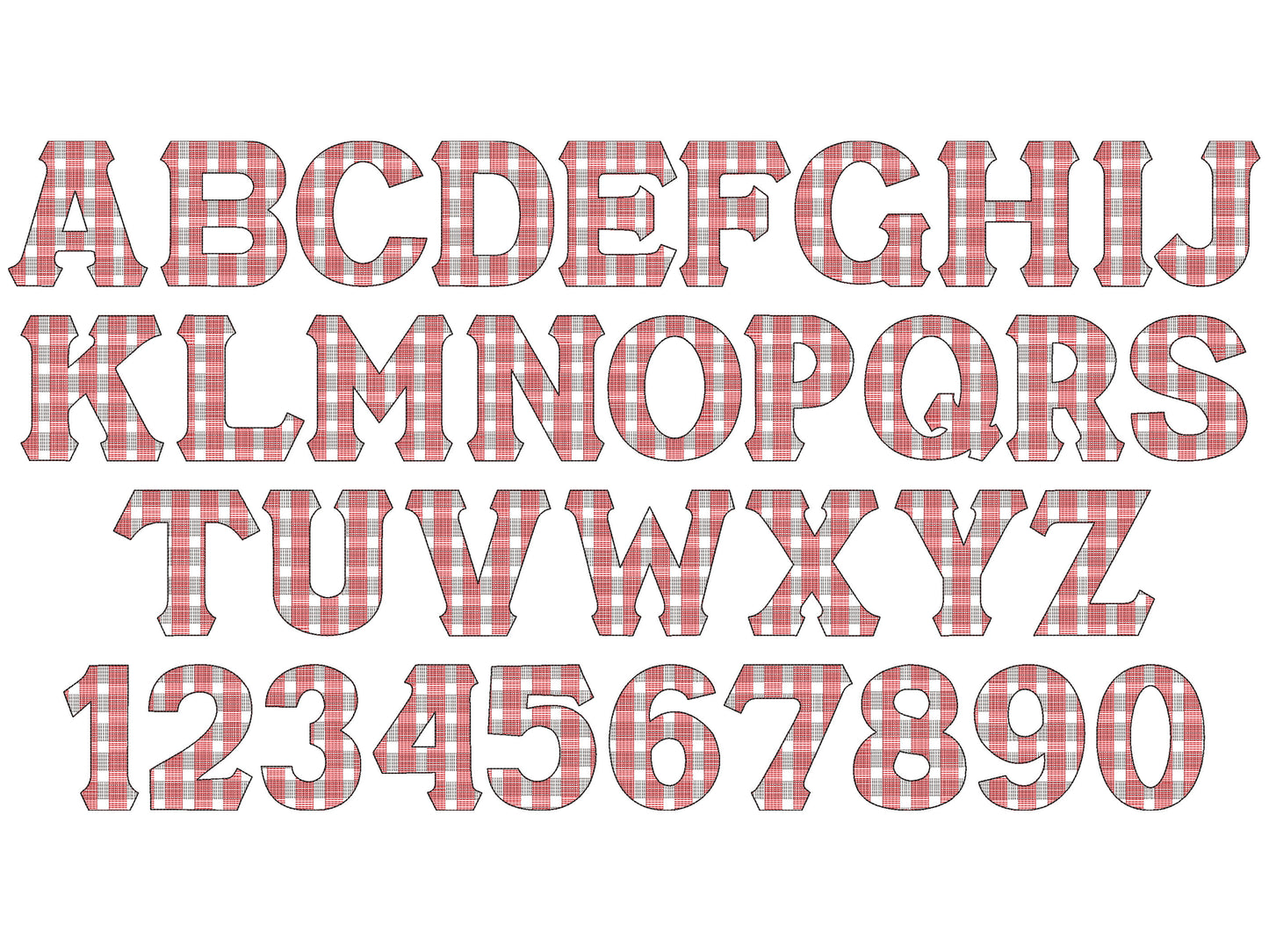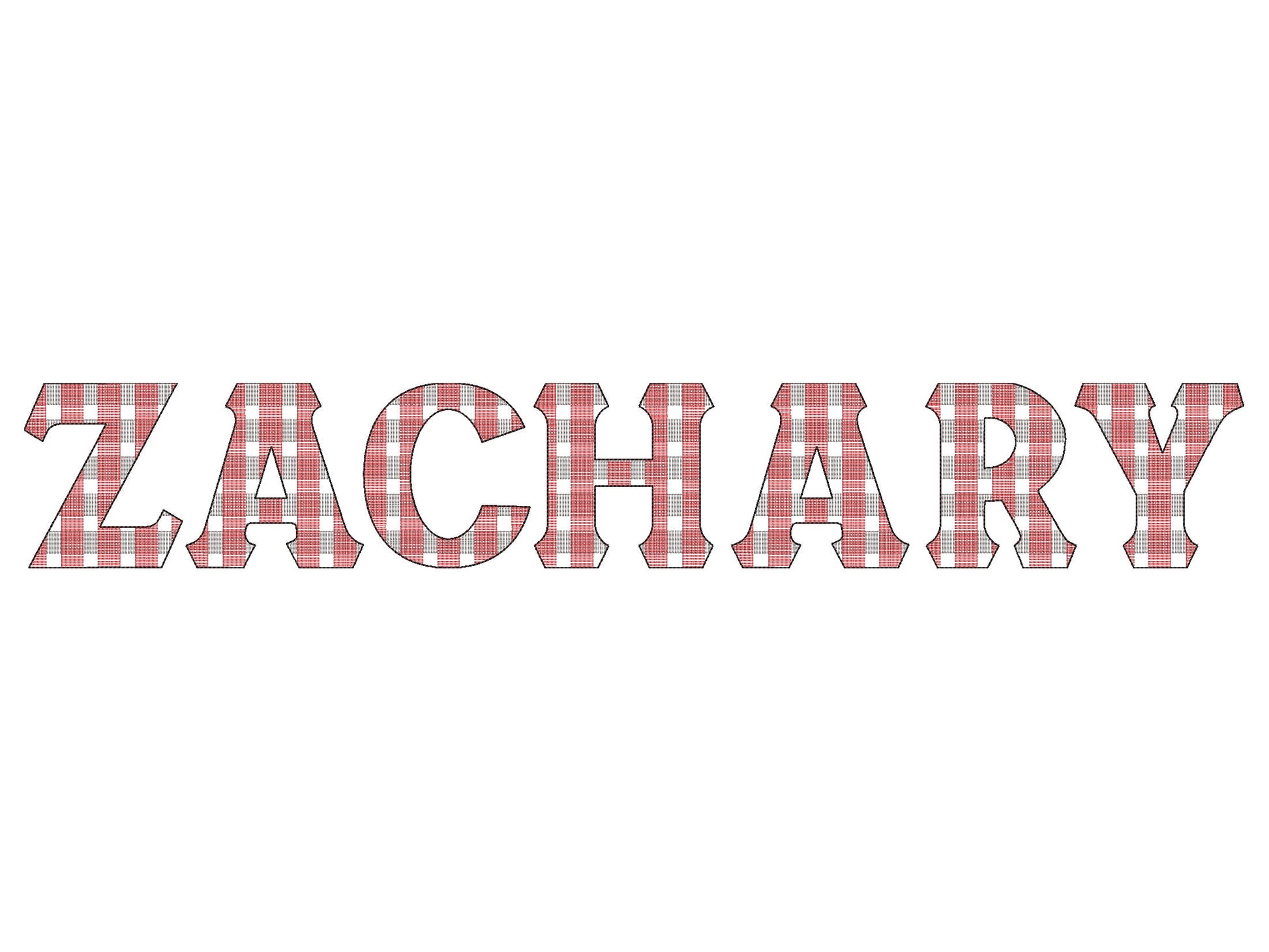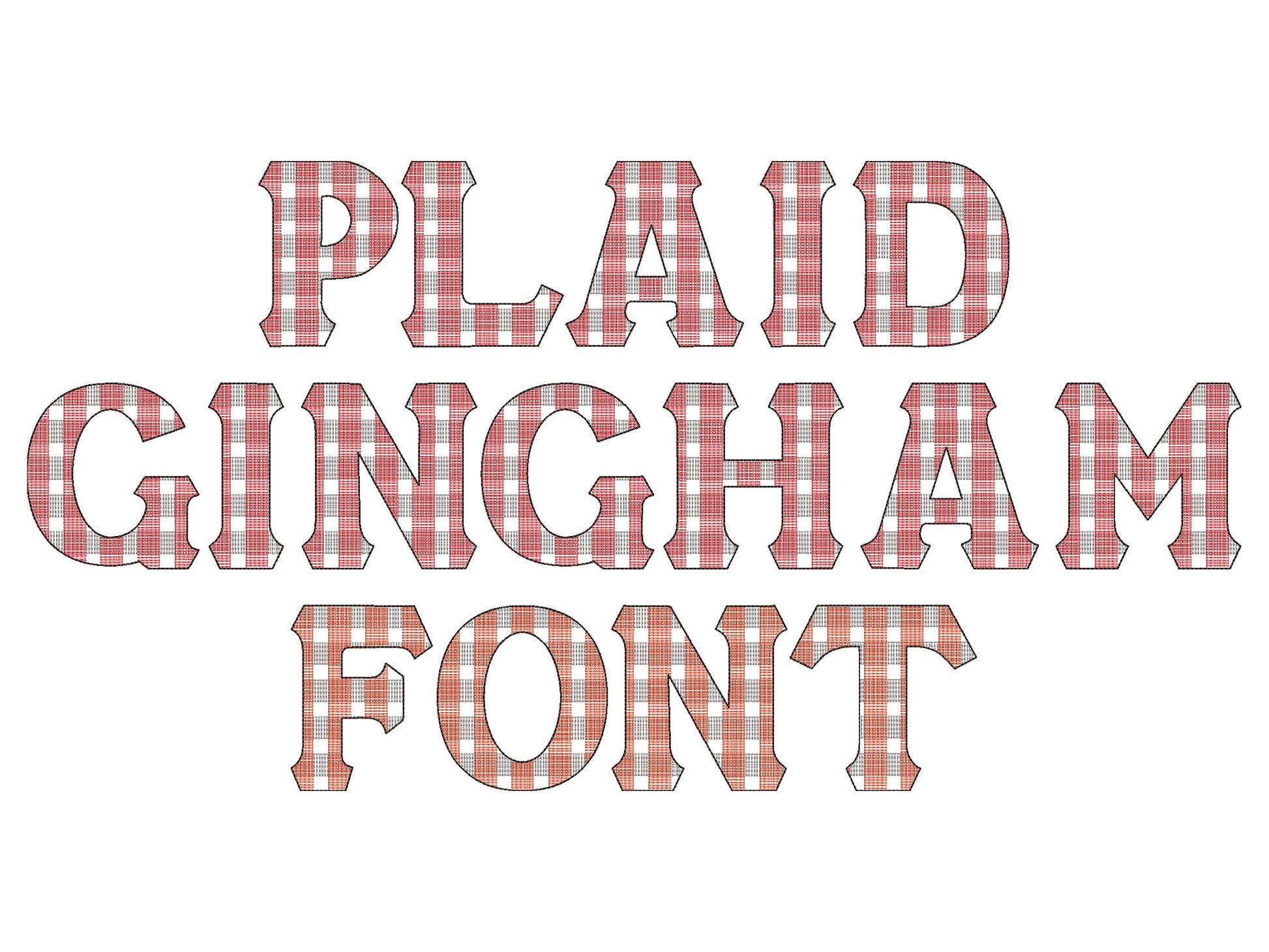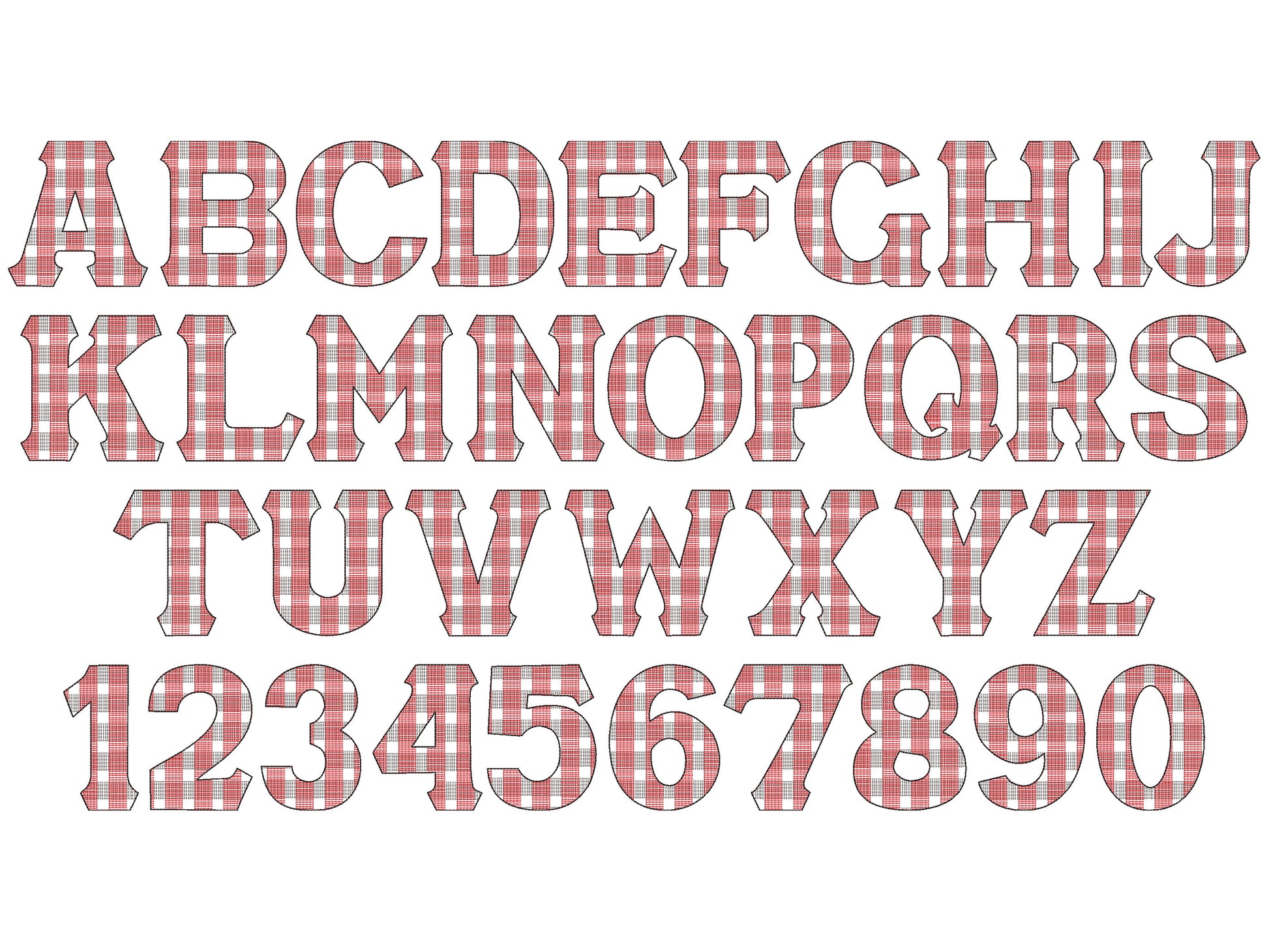
Or click to open the linkPlaid Gingham Font, buffalo tartan checkered uppercase and numbers, classy monogram machine embroidery designs 2, 3, 4, 5, 6, 7in, BX incl
The plaid checked effect is a part of the design.
Included uppercase and numbers.